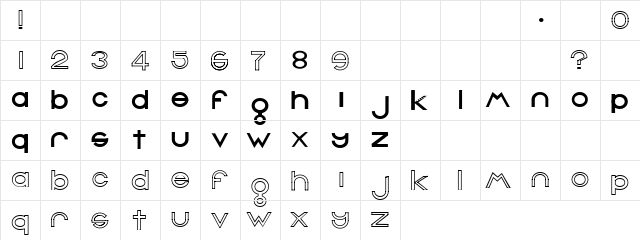
Warren 1
Design Context for Warren Typeface
Warren is a composed and adaptable typeface that performs quietly and consistently across a wide range of design contexts.